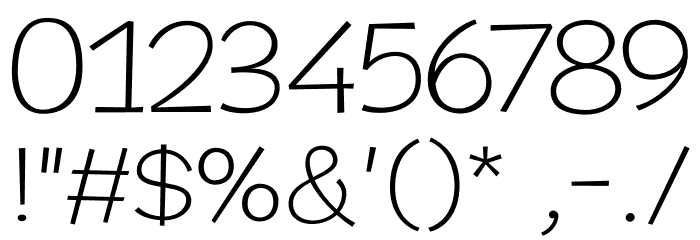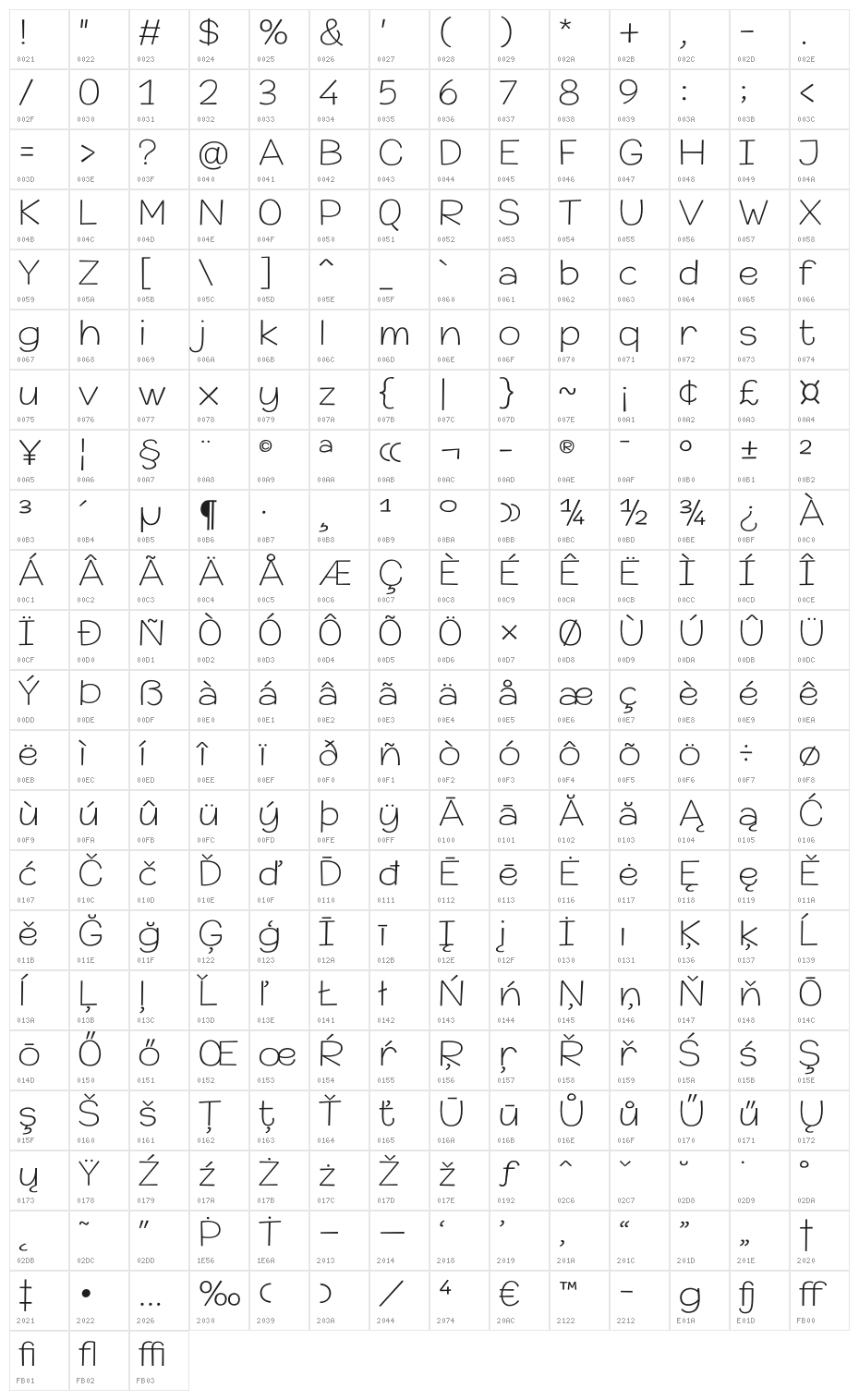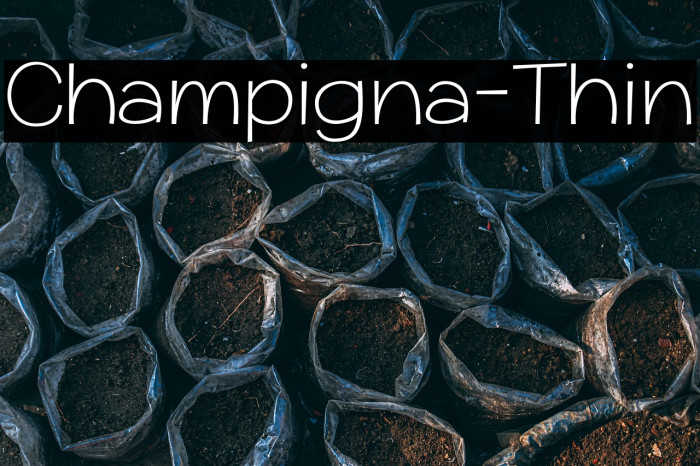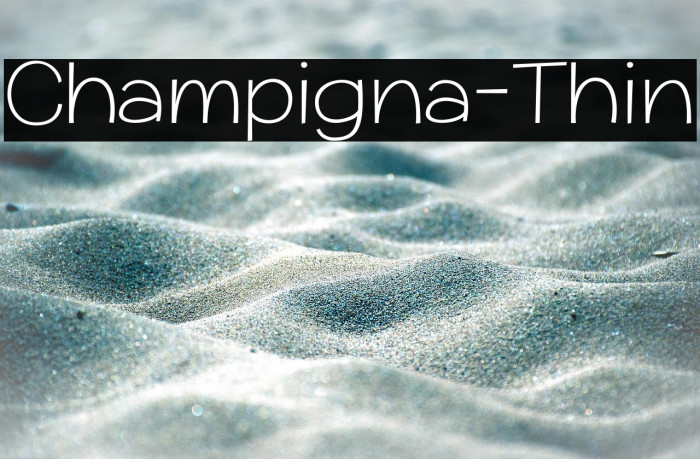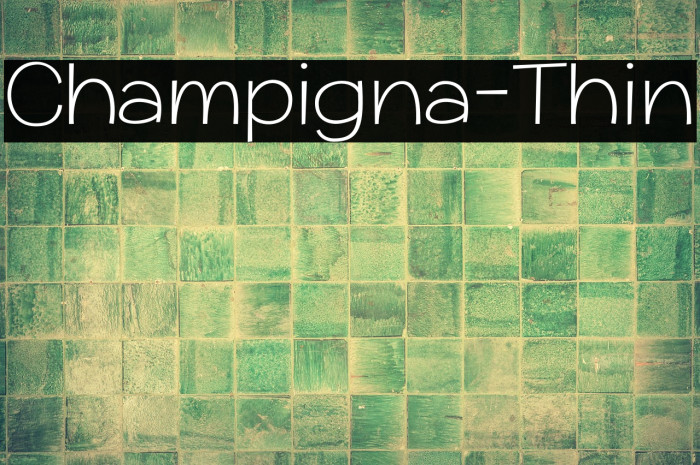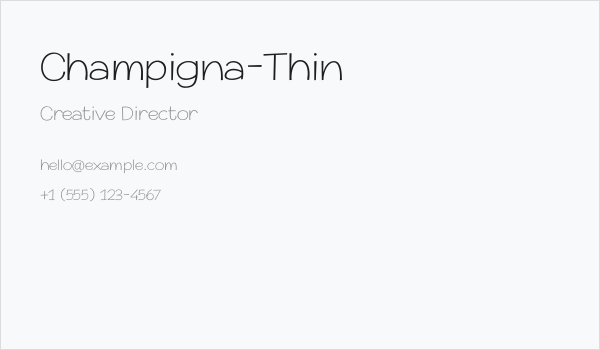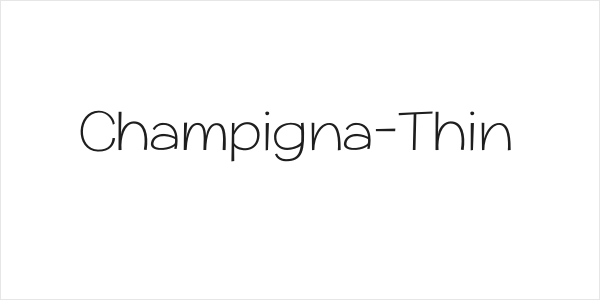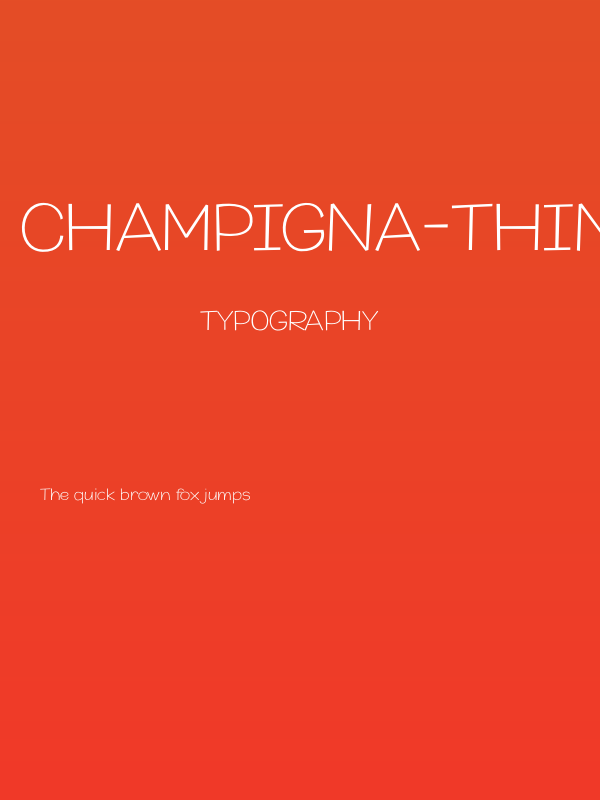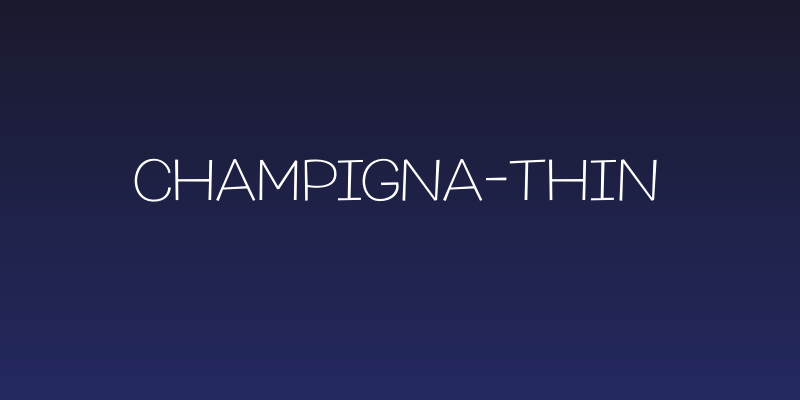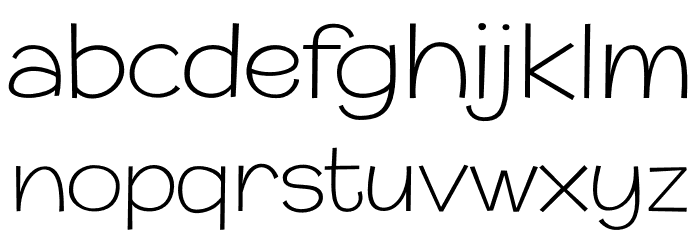
Champigna-Thin Font
Champigna-Thin Description
This font exhibits a clean and modern design with a thin, elegant stroke. The characters are well-proportioned, featuring a subtle roundness that adds a friendly and approachable feel. The uppercase letters are slightly taller than the lowercase, maintaining a consistent width that ensures readability. The numerals are clear and distinct, matching the overall style of the alphabet. Special characters are included, seamlessly integrating with the rest of the set. The font's simplicity and clarity make it versatile for various applications.